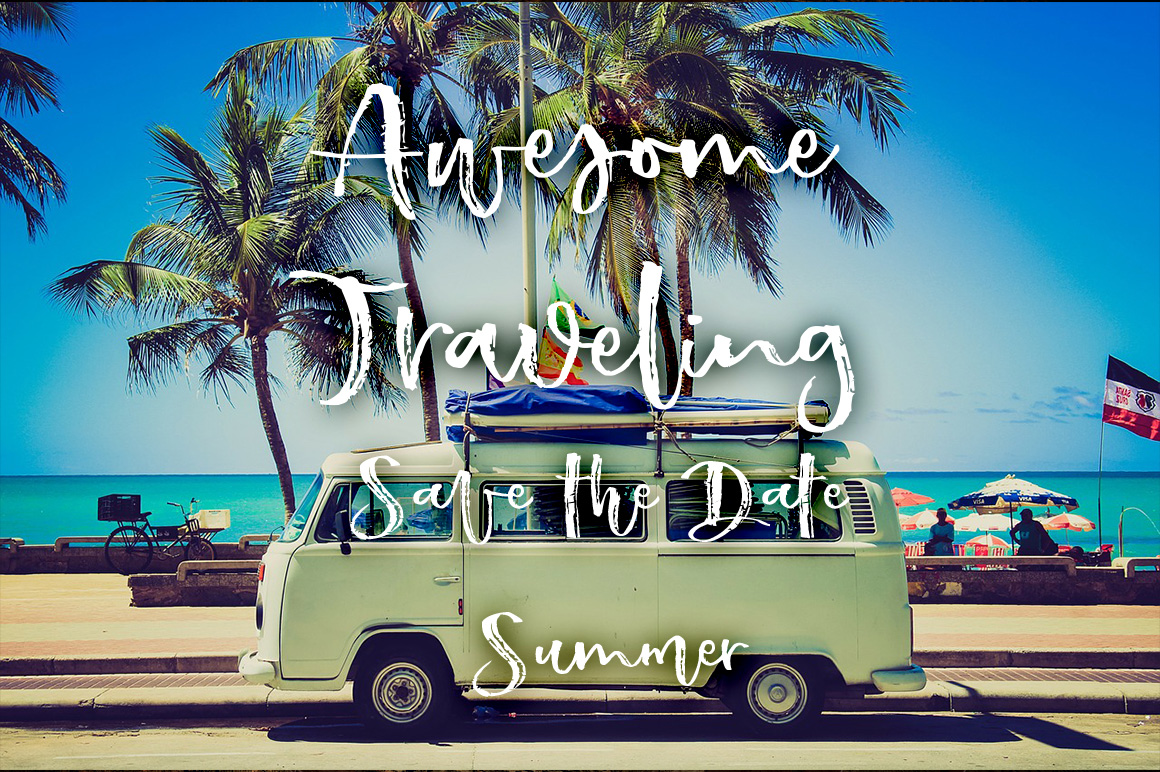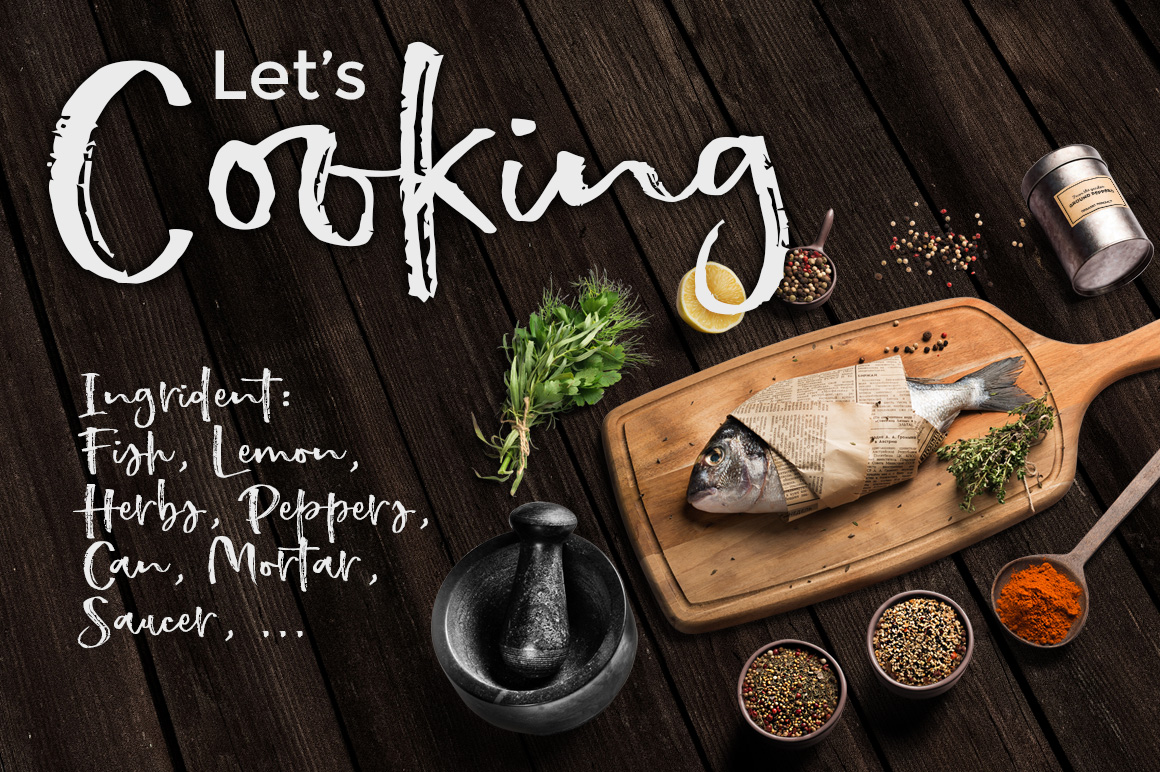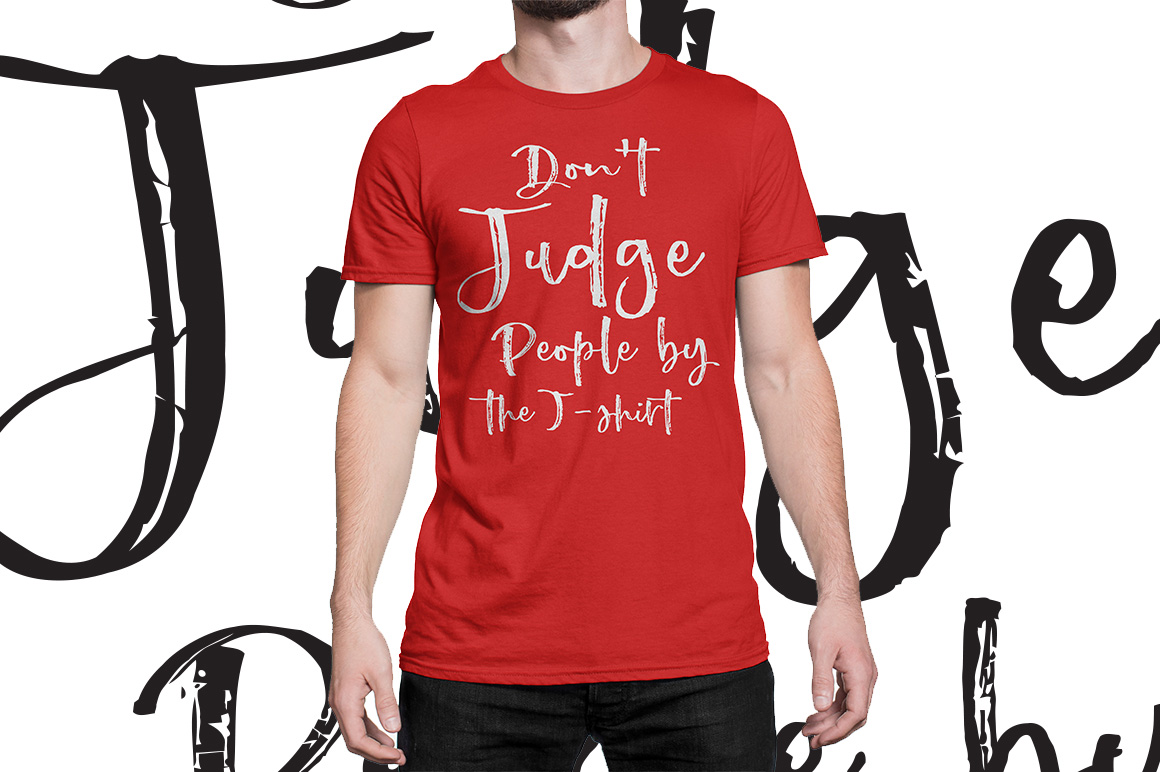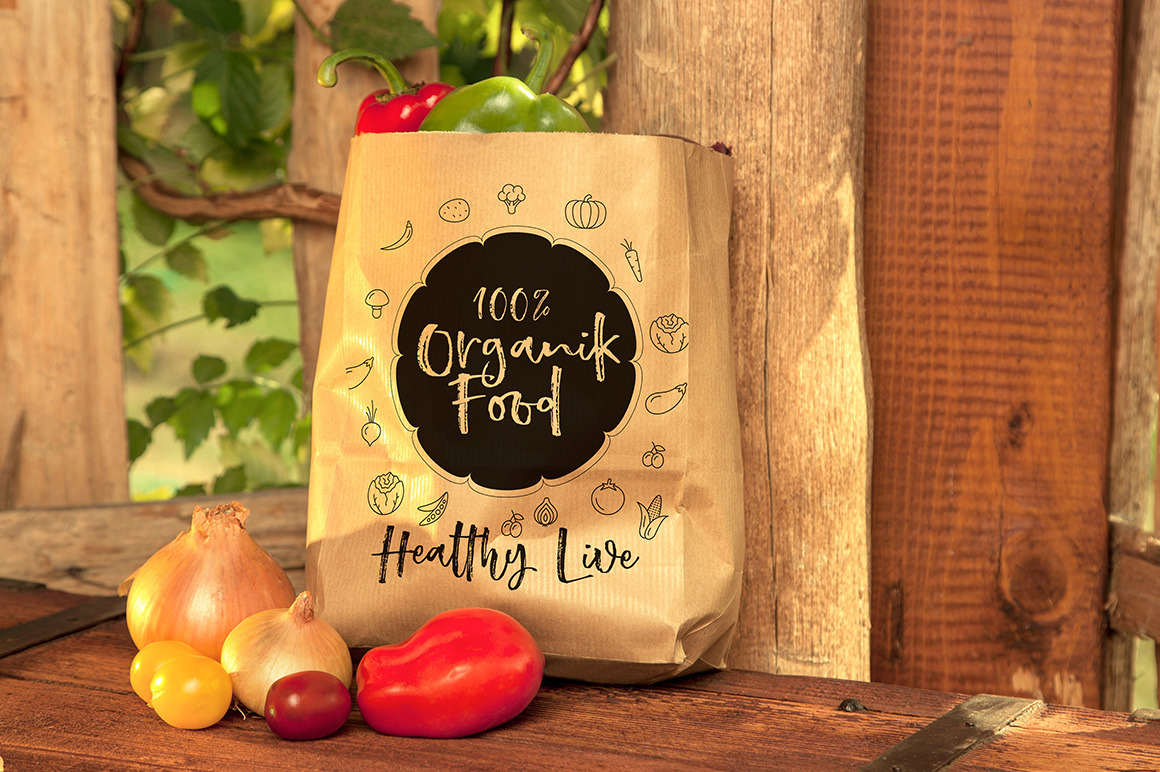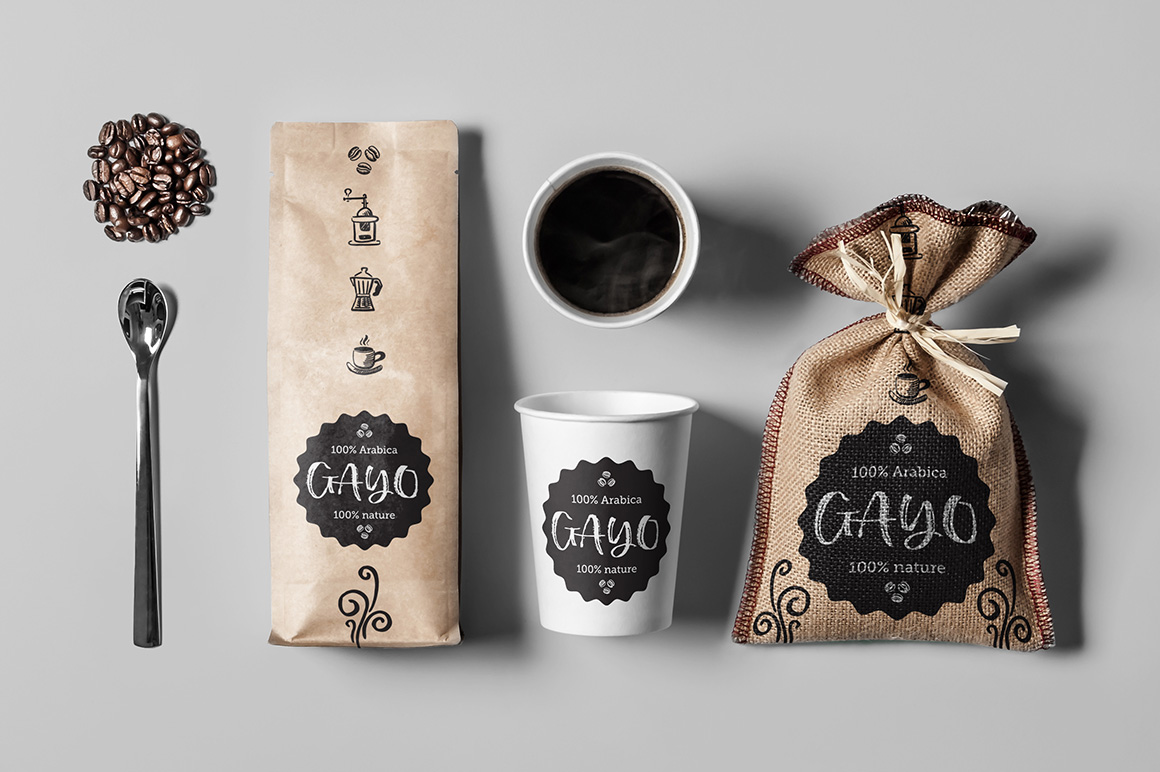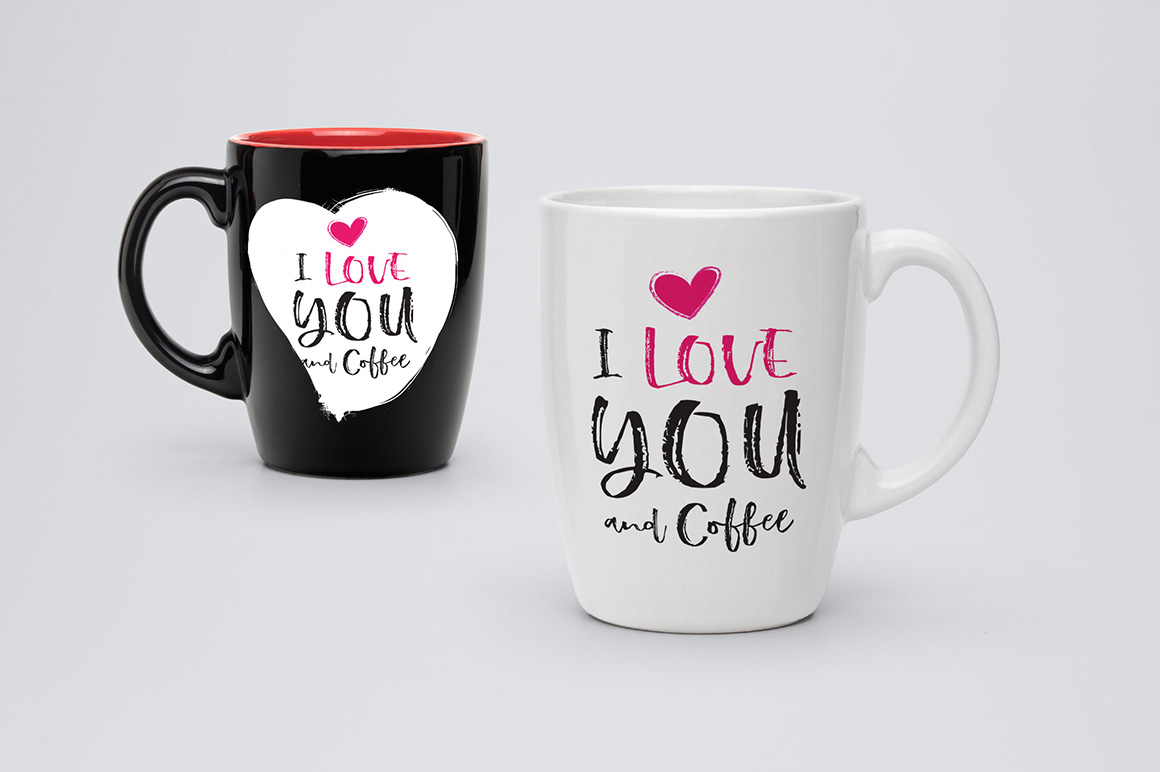
Dry Soul Font: Adding a Touch of Grungy Personality to Your Designs
In the world of typography, fonts play a crucial role in conveying the tone and personality of a brand or project. For designers and crafters looking for a typeface that exudes a sense of ruggedness and individuality, the Dry Soul Font is an excellent choice. This brush-based typeface boasts a grungy soul that adds a personal touch to any project, making it perfect for those who want to infuse their work with a bit of boldness.
What is Dry Soul Font?
Dry Soul Font is a unique, brush-based typeface designed to bring a sense of grittiness and authenticity to your designs. Its grungy texture and bold strokes make it an ideal choice for projects that require a personal touch, such as handmade crafts, artisanal products, or indie branding. The font’s rugged charm is balanced by its elegance, making it versatile enough to be used in a wide range of applications.
Key Features of Dry Soul Font
- Brush-based design: Dry Soul Font features a distinctive brush-based design that gives it a handcrafted, organic feel.
- Grungy texture: The font’s grungy texture adds a layer of depth and character to your designs, making them stand out from the crowd.
- Bold strokes: The bold strokes of Dry Soul Font make it perfect for headlines, titles, and other applications where you want to make a statement.
- Personal touch: The font’s unique personality makes it an excellent choice for projects that require a personal touch, such as handmade crafts or artisanal products.
Use Cases for Dry Soul Font
Dry Soul Font is a versatile typeface that can be used in a wide range of applications, including:
- Branding and packaging: Use Dry Soul Font to add a touch of personality to your brand’s packaging and marketing materials.
- Handmade crafts: The font’s handcrafted feel makes it perfect for handmade crafts, such as jewelry, textiles, or woodwork.
- Artisanal products: Dry Soul Font is an excellent choice for artisanal products, such as food, beverages, or home decor.
- Indie branding: The font’s grungy charm makes it a great fit for indie branding, including music labels, zines, or independent publications.
Tips for Using Dry Soul Font
To get the most out of Dry Soul Font, here are a few tips to keep in mind:
- Use it sparingly: While Dry Soul Font is bold and attention-grabbing, it can be overwhelming if used excessively. Use it sparingly to add emphasis to key messages or headings.
- Pair it with a neutral font: Pair Dry Soul Font with a neutral font to create visual interest and balance out the design.
- Experiment with colors: The font’s grungy texture looks great in a range of colors, from earthy tones to bold brights. Experiment with different colors to find the perfect fit for your project.
Dry Soul Font is a unique and versatile typeface that adds a touch of grungy personality to any project. Its brush-based design, bold strokes, and grungy texture make it perfect for designers and crafters looking for a font that exudes a sense of ruggedness and individuality. Whether you’re working on a branding project, handmade craft, or artisanal product, Dry Soul Font is an excellent choice for adding a personal touch and a bit of boldness to your design.